Try These Cute New Font Styles for Your Valentine’s or Galentine’s Greetings
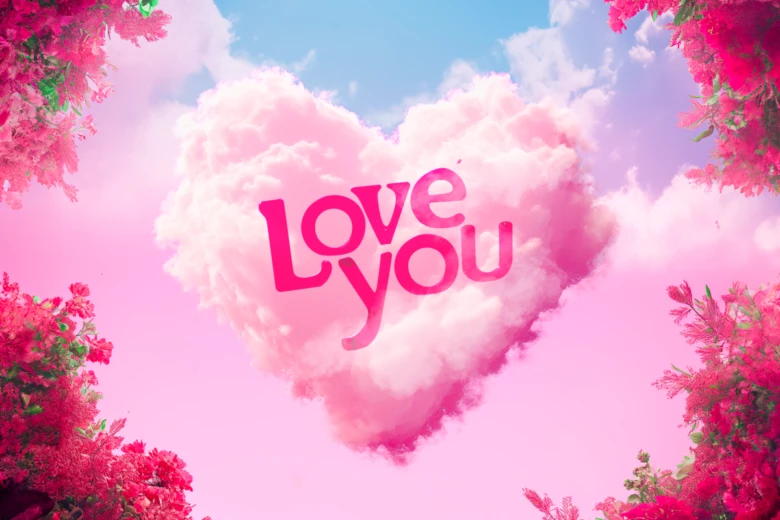
As the day of love approaches, we are excited to share our new AI-generated font selection! This colorful set of fonts has been specially designed for Valentine’s Day and is here to brighten up this occasion! Read on to get all of the details on this exciting new drop✨.
We know that every year there is a need for V-Day-related content in order for all of us to celebrate. These new fonts allow for unique, personalized messages to be sent to your pals and gals. They are perfect for anyone who wants to add something special to their Valentine’s wishes this year!
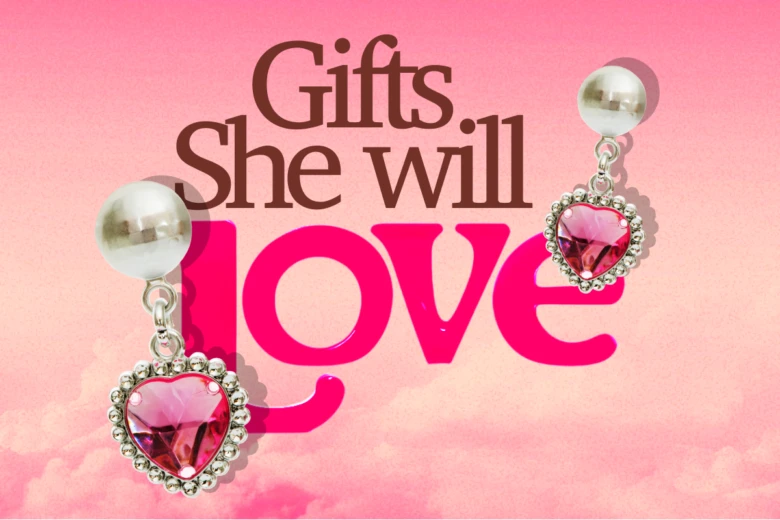
Introducing Your New Favorite V-Day and G-Day Fonts
This new set of fonts consists of several cute, fun styles that scream “Be my Valentine!” From Chocolate Drizzle to Rose Garden, there are plenty of super sweet designs to be chosen from. They are also great for any love-themed project, both for Valentine’s Day and beyond! We used Gen AI technology to create this innovative typography, which has allowed for them to each be made with extreme detail and precision. AI truly is the future, and embracing it in this design process has helped to create these innovative fonts perfectly.
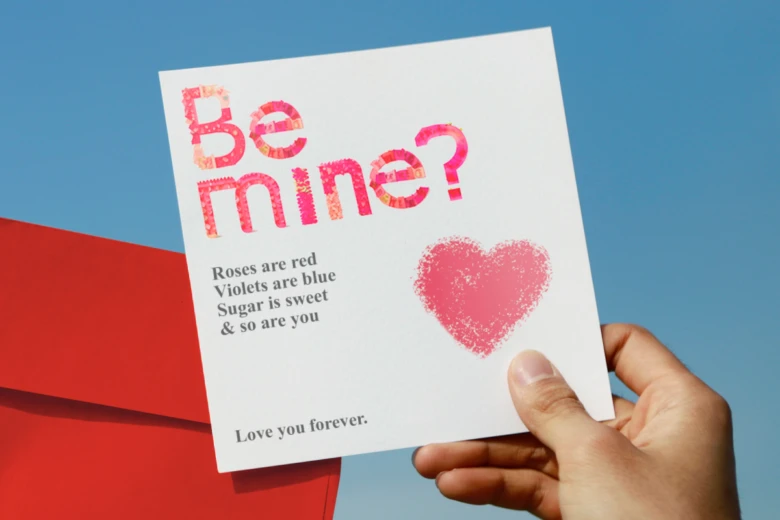
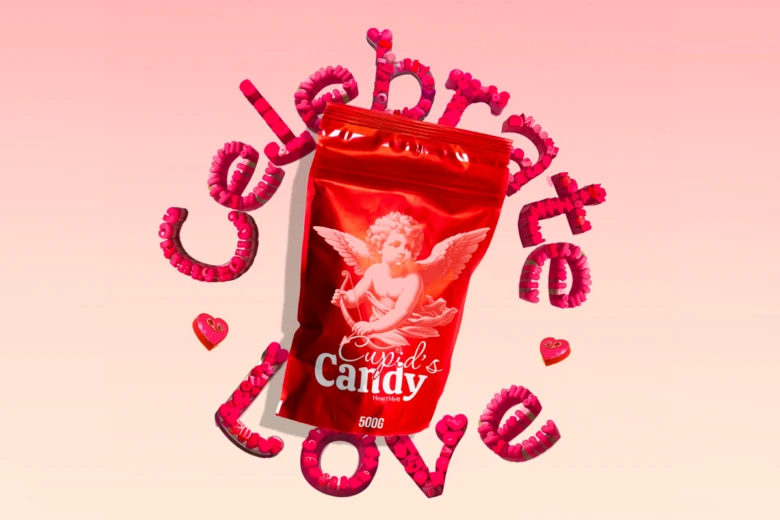
Versatility of Usage
The styles are also able to be used on other platforms outside of Picsart! You are able to use these fonts in practically any way you’d like, allowing you to make them additions to all design work. You can definitely get creative with how you use these styles, whether it’s to make a real-life card or to post a social media message. They are perfect for any creation!